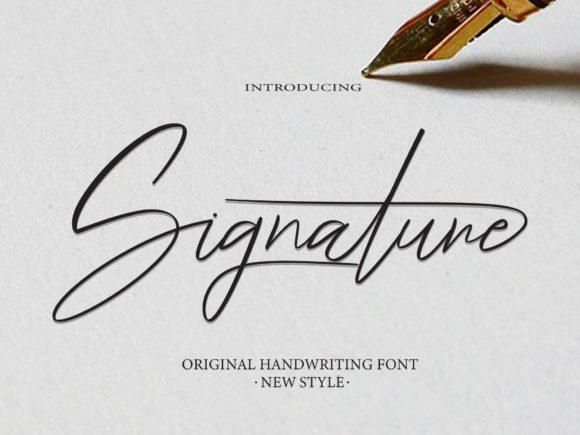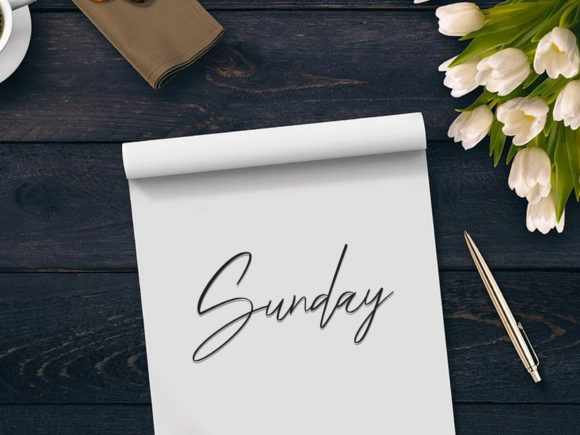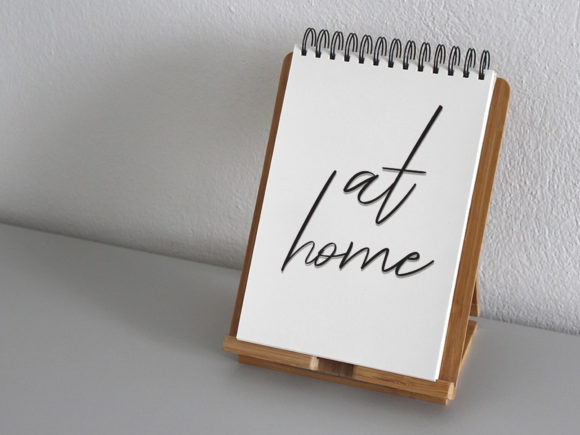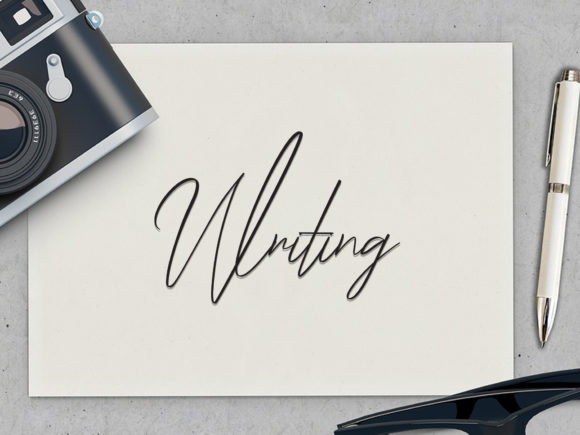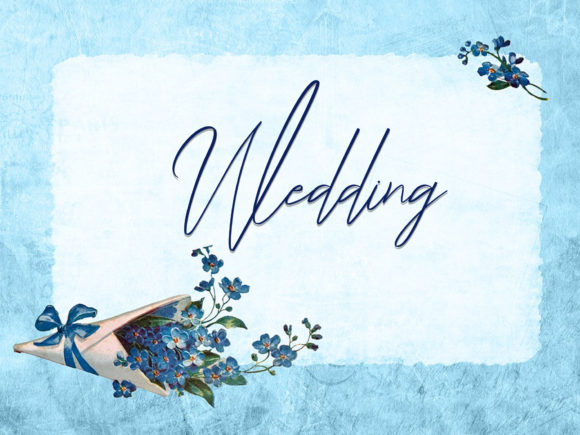
Signature is a handwritten font that is carefully crafted to produce cool and unique vibes. This font can be used to write letters, invitations, food products and more.